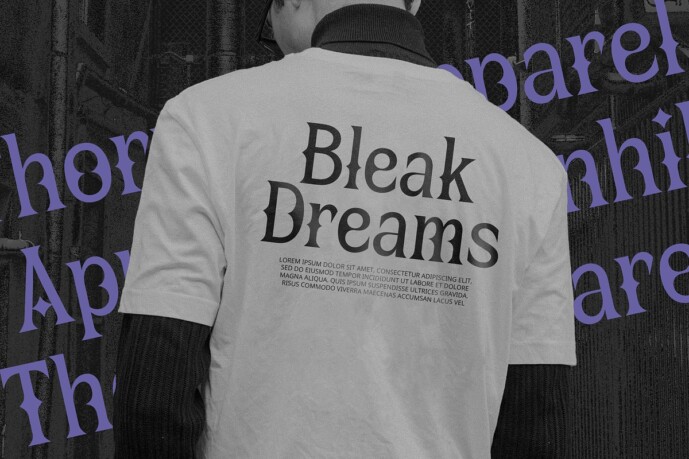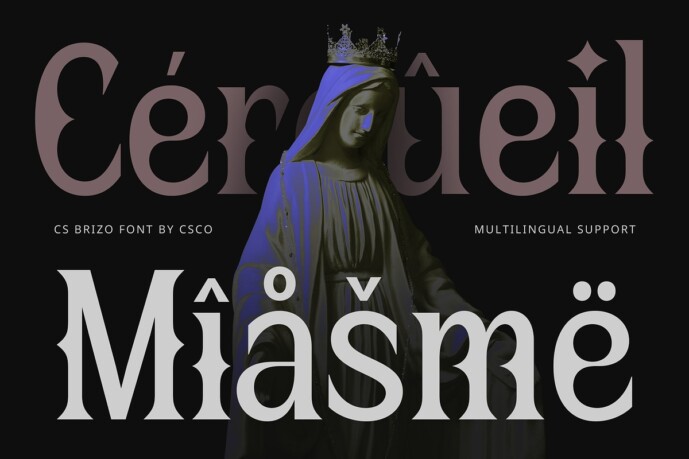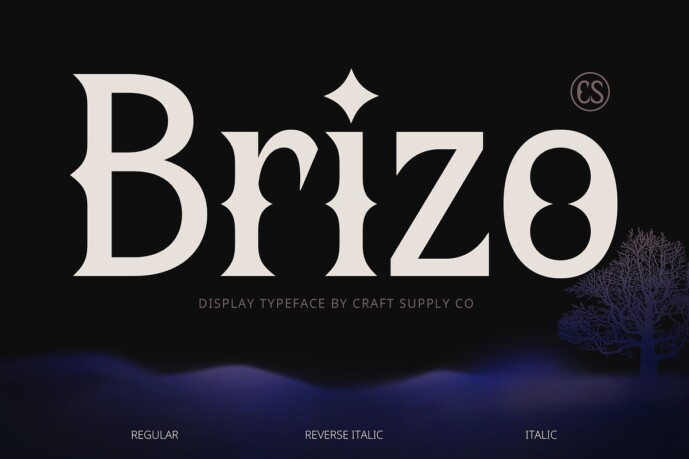
Brizo Font
Brizo Font is a modern serif font that merges timeless elegance with a strikingly sharp design. Each letter features spiky or pointed elements, adding an unconventional and artistic flair to the traditional serif structure. The spiked lines and angular protrusions create a dramatic, bold aesthetic that commands attention while still maintaining a sense of refinement and luxury. The font’s combination of sharpness and sophistication gives it a distinctive, eye-catching appeal, perfect for designs that require both elegance and edginess.
Ideal for Premium and Impactful Designs With its unique blend of bold spiky elements and classic serif style, CS Brizo is perfect for high-end branding, editorial design, and luxury projects. Its dramatic lines bring a daring visual impact to logos, headlines, and other prominent text elements, ensuring a standout appearance.
A Balance of Boldness and Refinement CS Brizo’s spiky design sets it apart from conventional serif fonts, offering a bold, artistic edge without losing the elegance that serif fonts are known for. The pointed elements add a unique, rebellious character, making it ideal for fashion, luxury branding, or editorial layouts that aim to push boundaries while still reflecting a sense of style and grace.
CS Brizo Reverse Italic
CS Brizo Regular
CS Brizo Italic